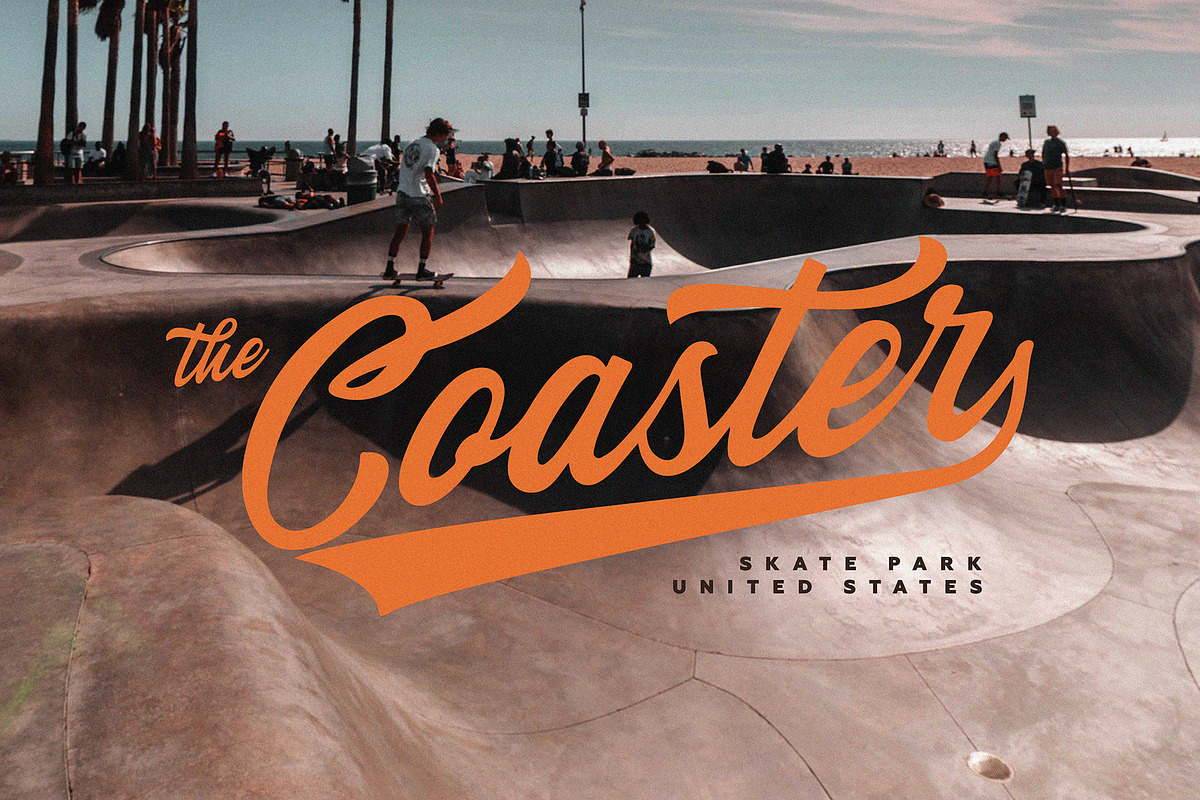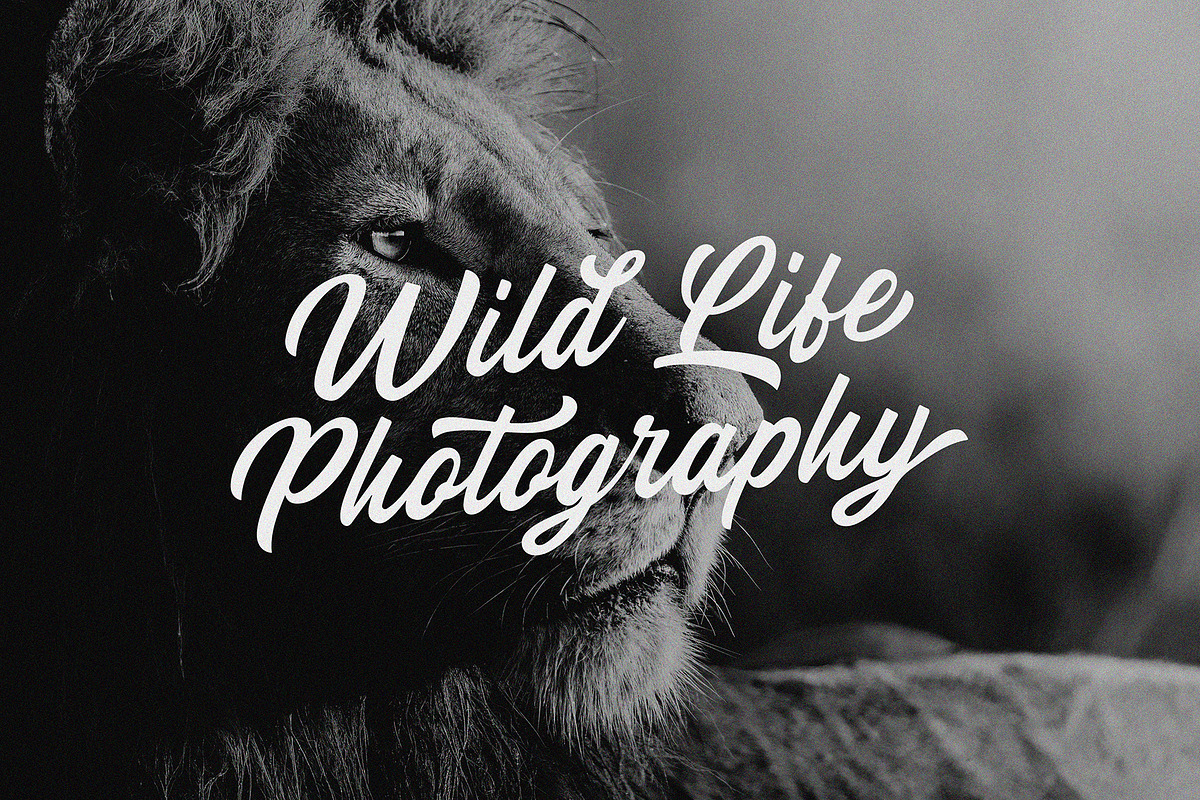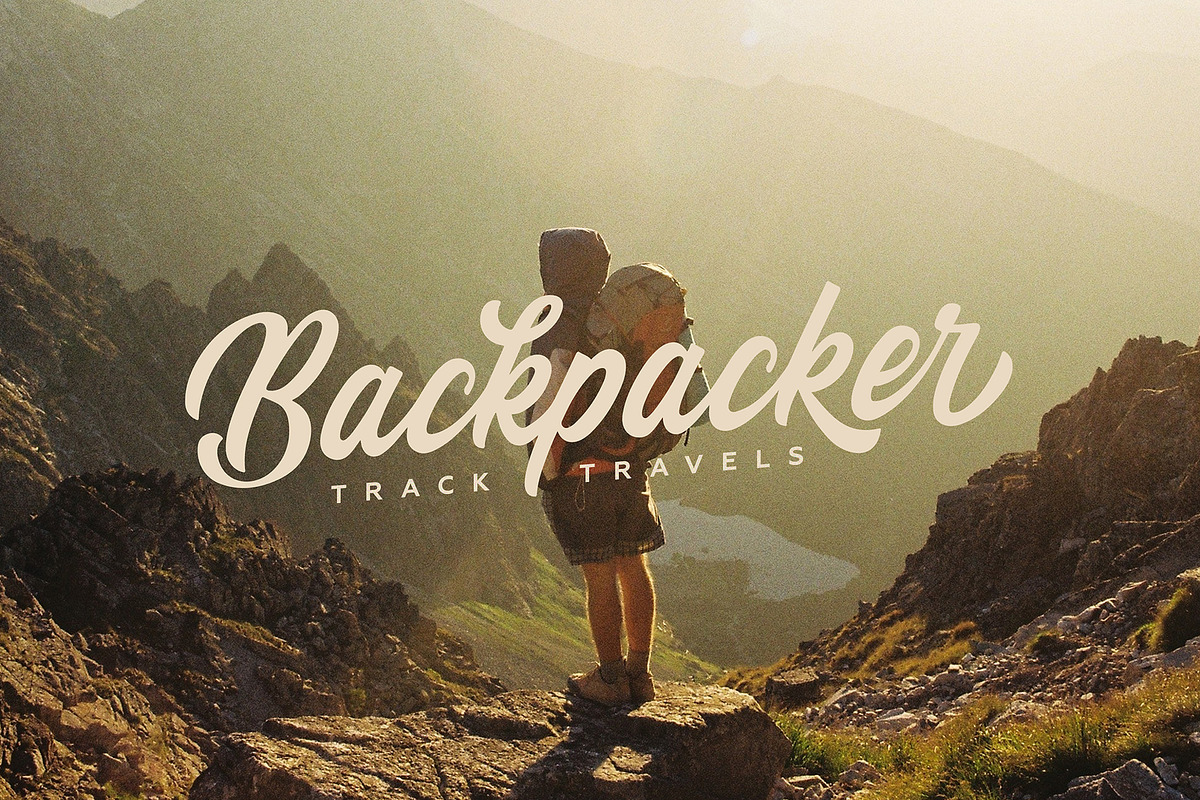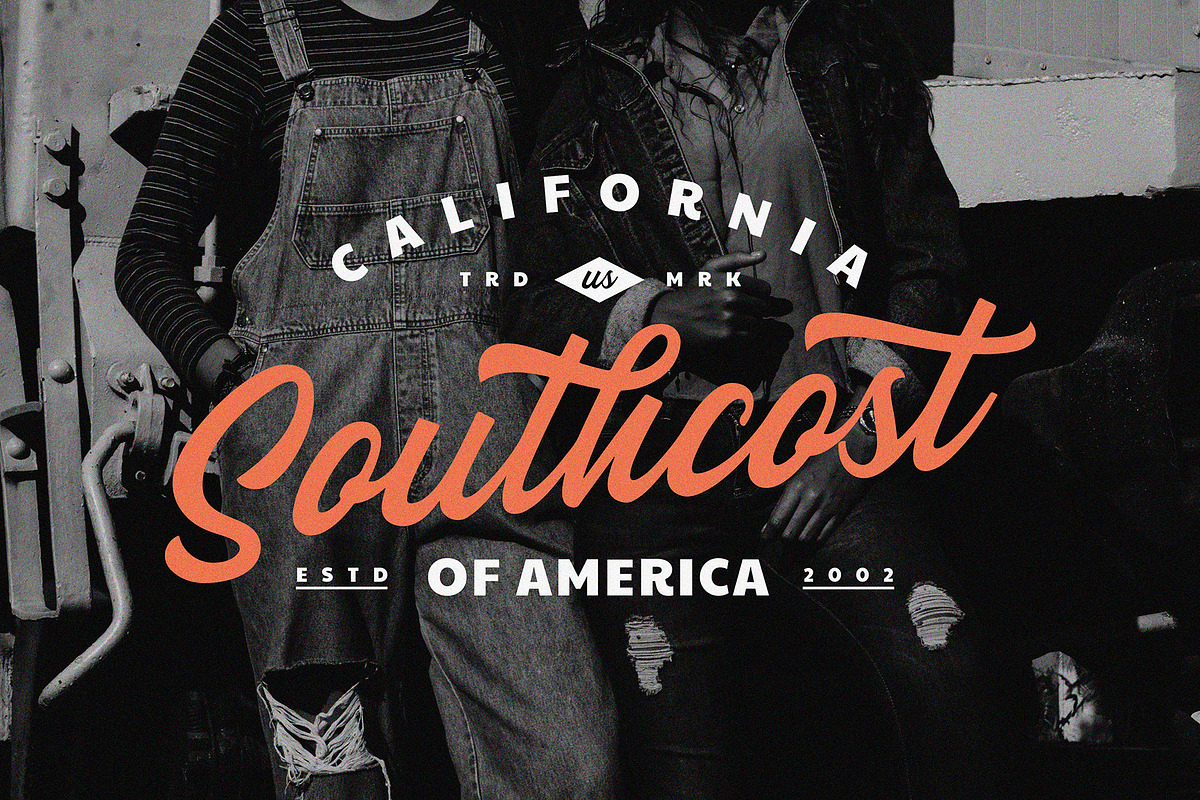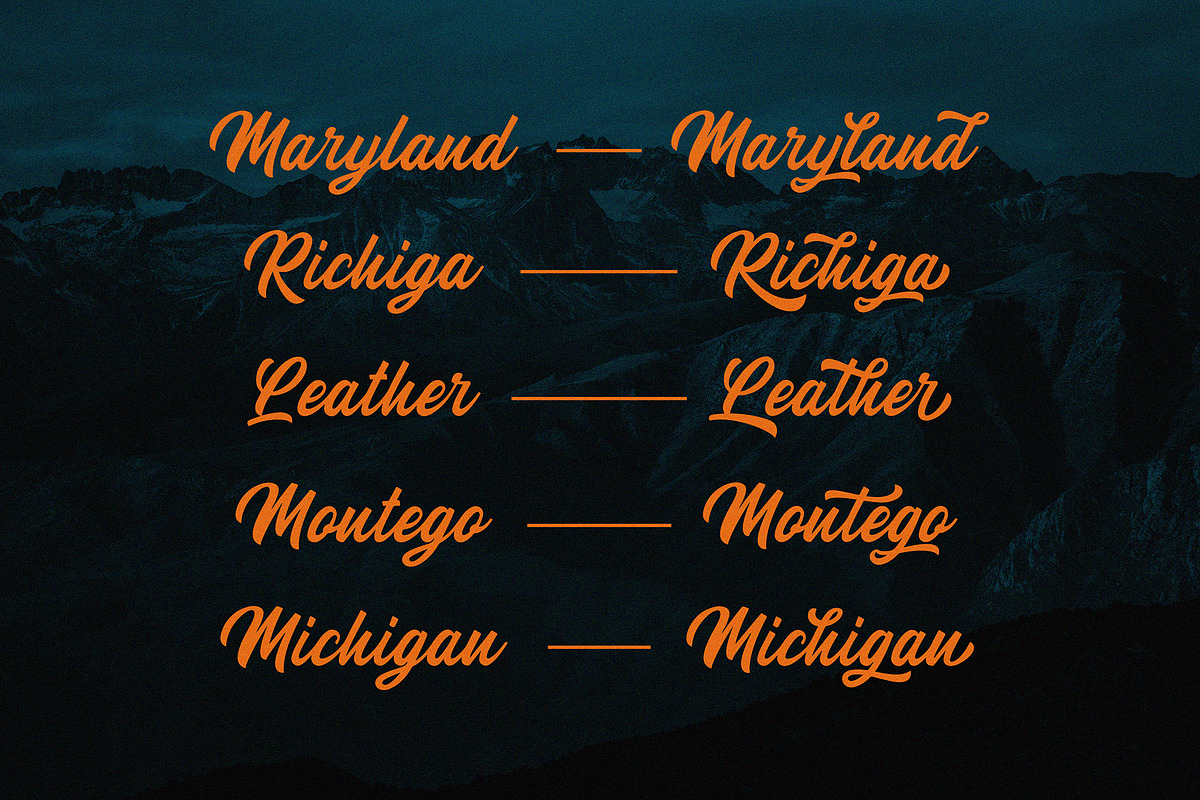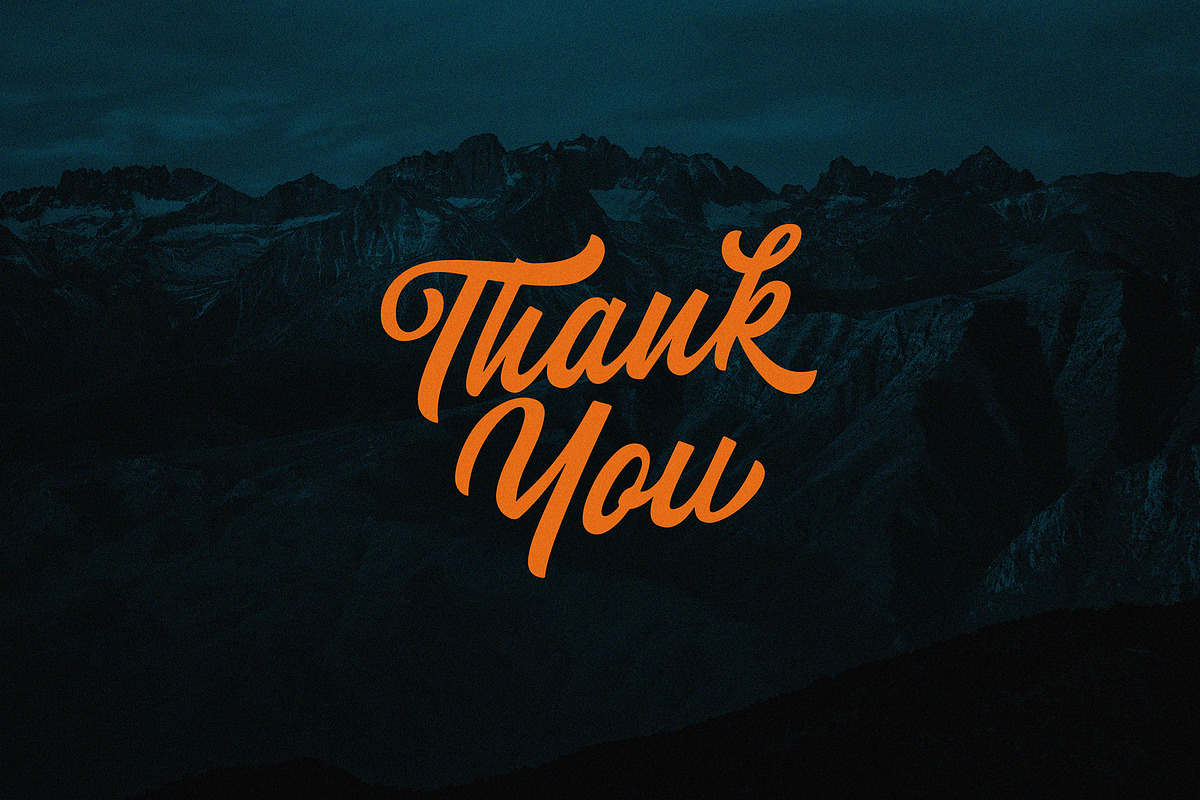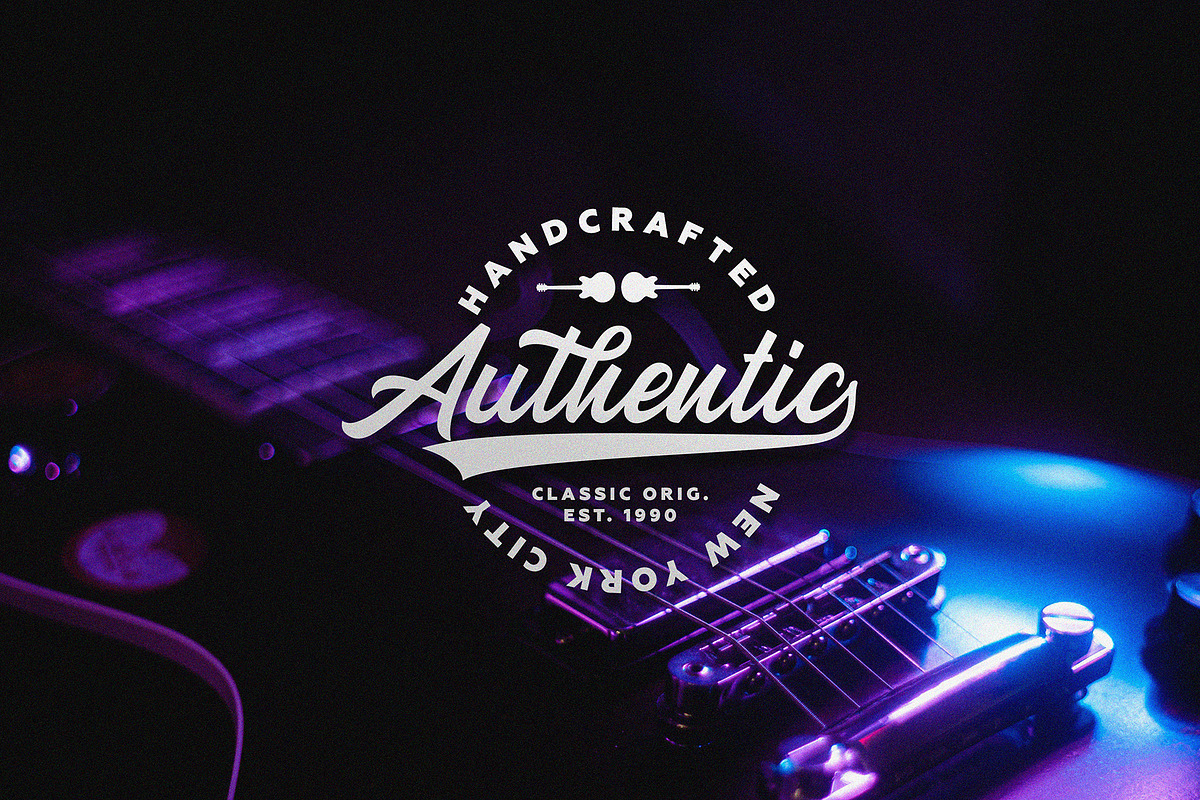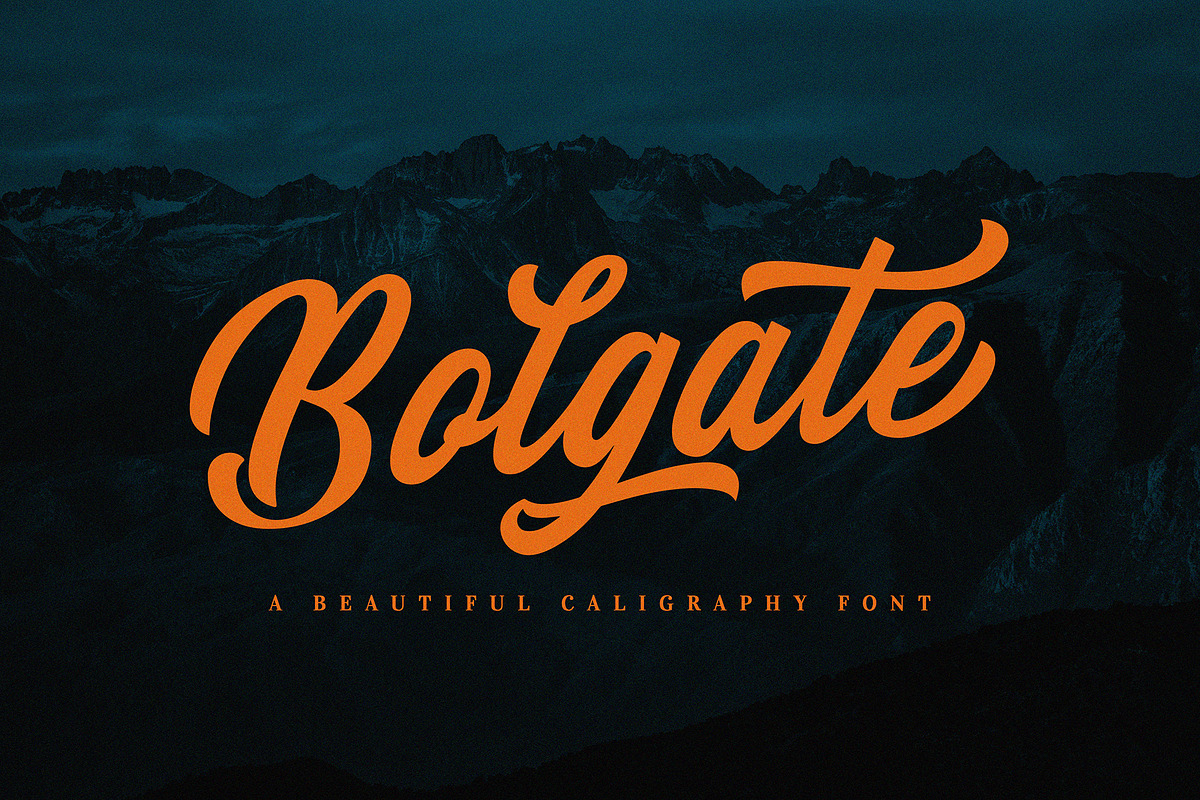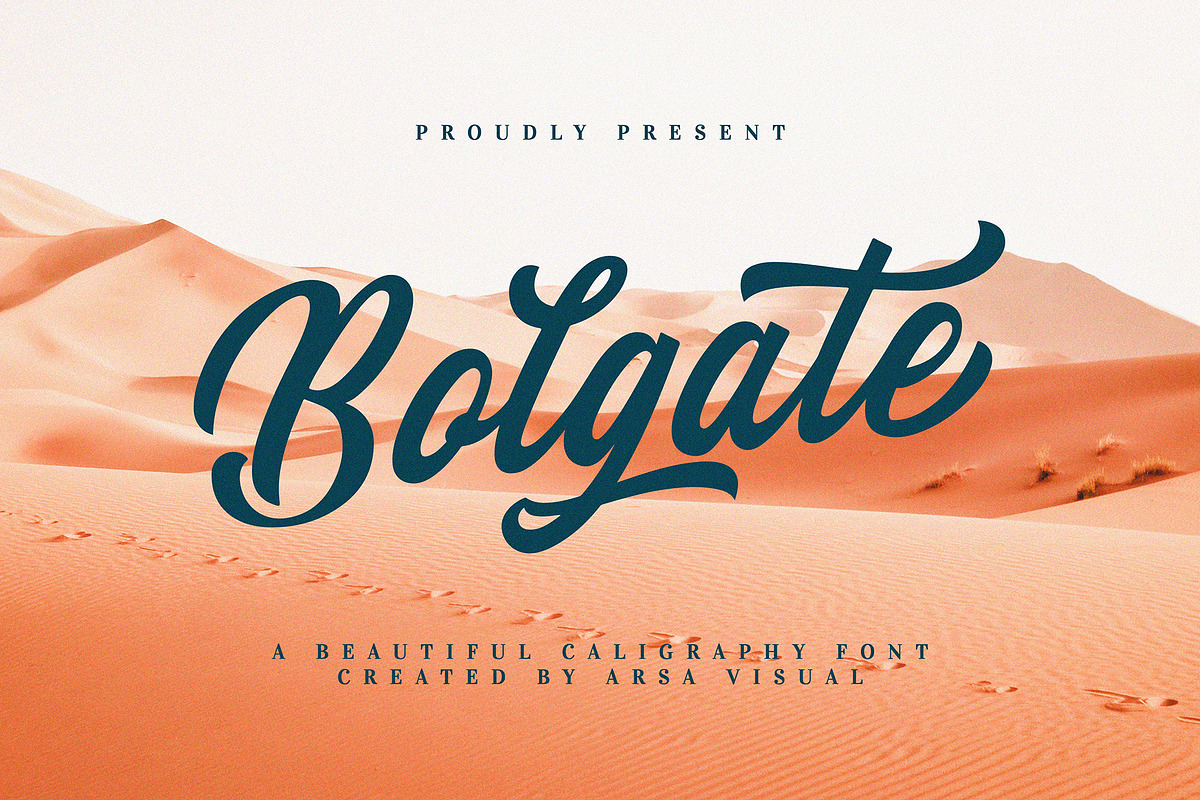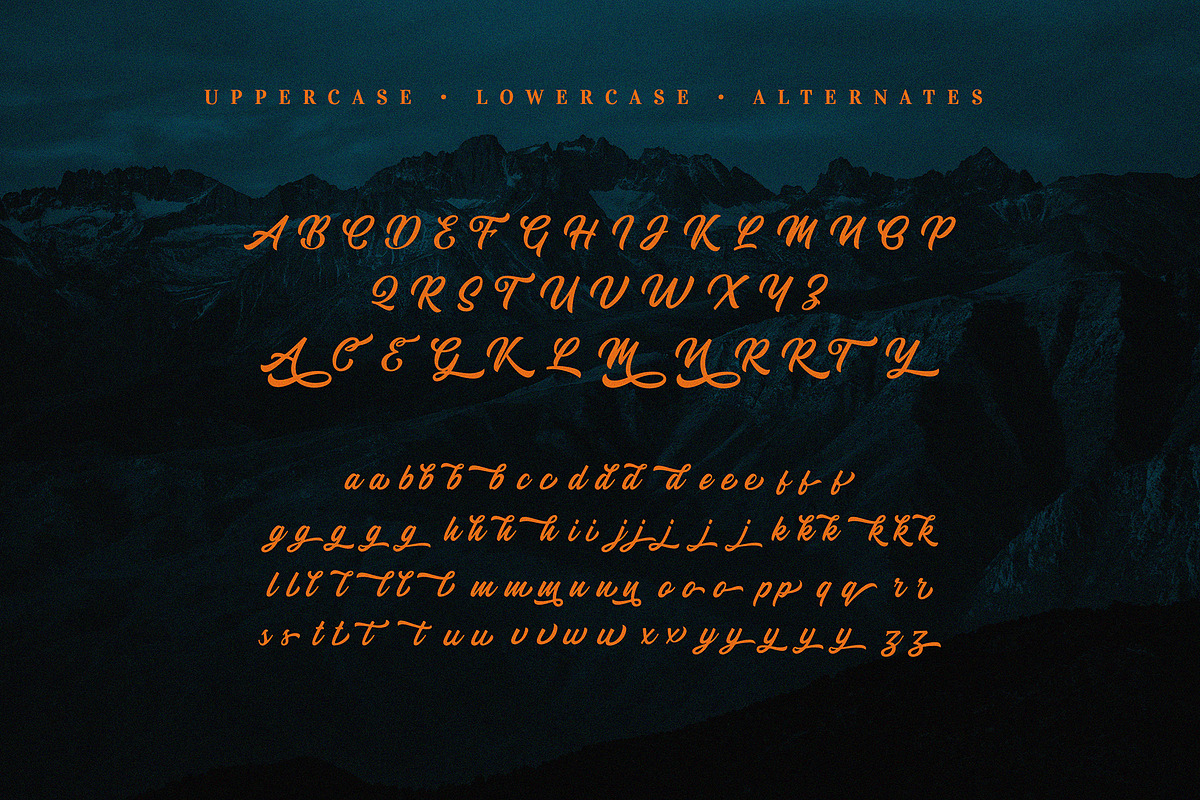
Bolgate - Script
Bolgate is a beautiful caligraphy font. This font works really well for Logos & Apparel Design. It's also great for creating Prints or Merchandise, as you can use the illustrative qualities of the shapes to create an art piece.